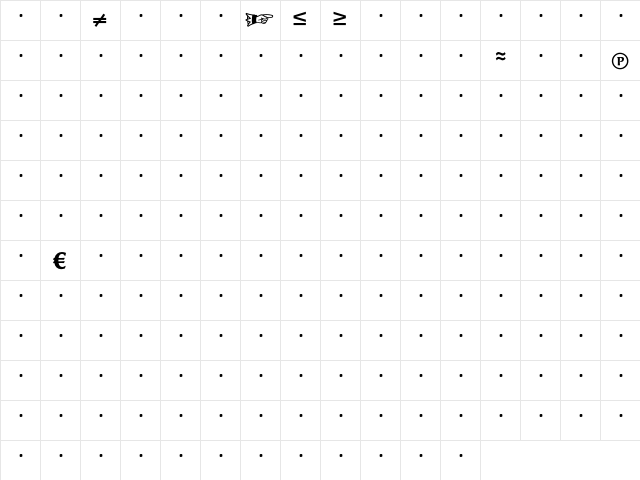
Angie BoldExpert
Design Context for Angie Typeface
Angie offers clean, dependable letterforms without strong stylistic allegiance, making it a practical choice for designers who need flexibility. Its bold stroke weight gives it real presence on the page.
Pro Tip: Pair Angie with a font of contrasting weight or personality to build a more expressive typographic hierarchy.